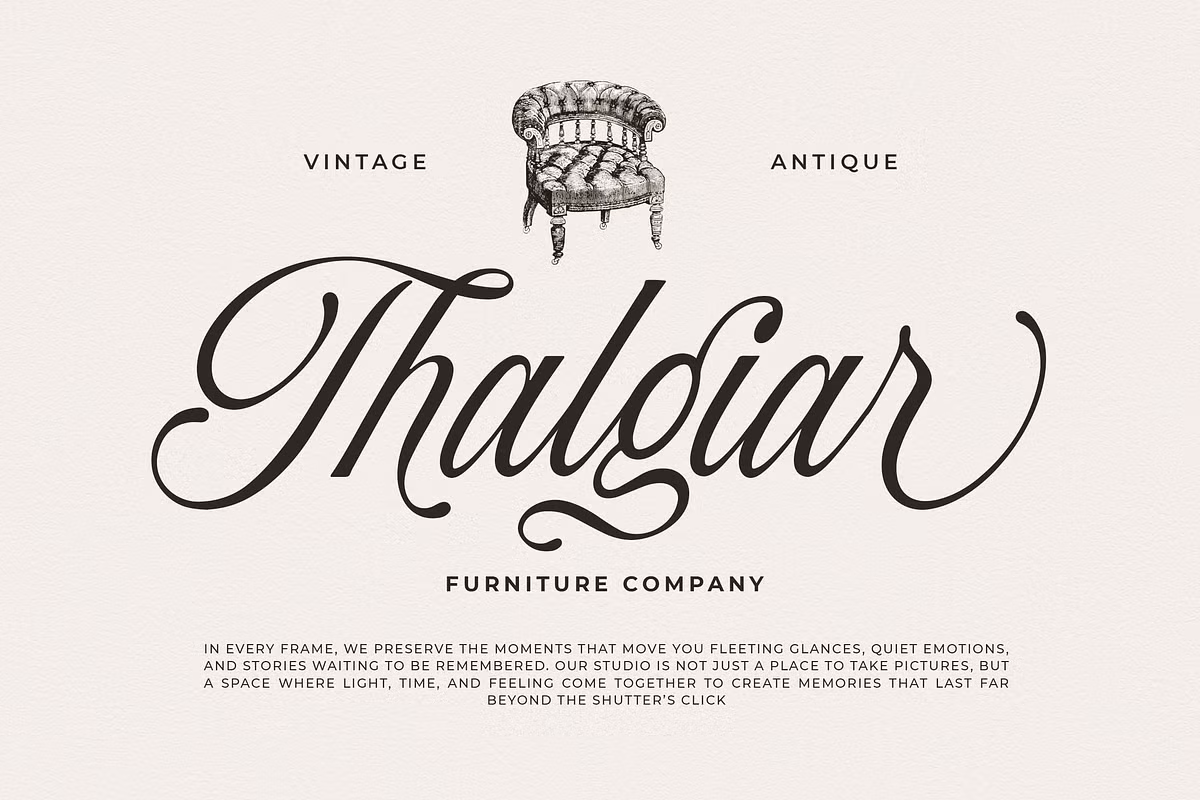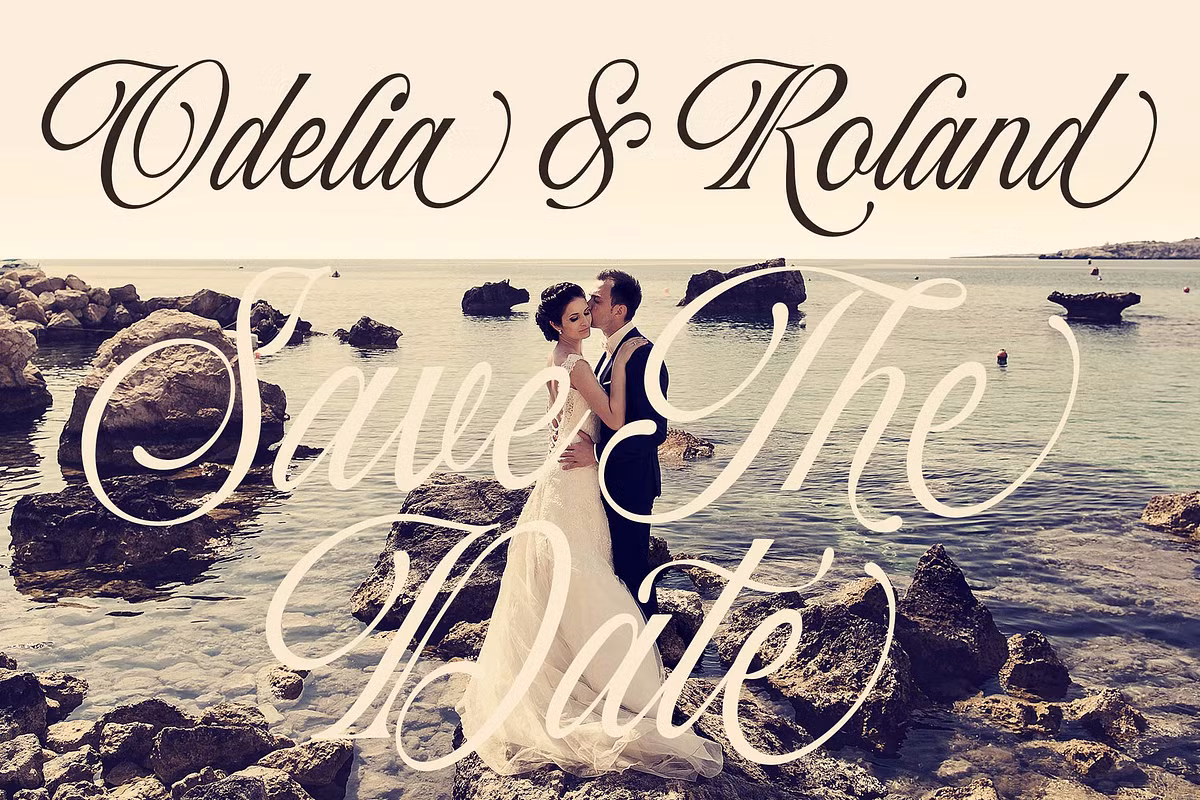
Baliglad: Elegant Calligraphy Script Font for Stylish Designs
Baliglad – Stylish Calligraphy Font
Baliglad: Elegant Calligraphy Script Font for Stylish Designs
Baliglad is a really beautiful calligraphy script font that combines old-school style with a modern twist. It’s got smooth, flowing curves and elegant strokes that give it a luxurious, handwritten feel. This makes it perfect for adding a touch of class and personality to your design projects. So, whether you’re creating a fancy logo or a romantic wedding invitation, Baliglad is a great choice. It can help you create something that’s both sophisticated and heartfelt. With its unique blend of classic and modern elements, Baliglad is sure to make your designs stand out. It’s a great way to add some extra elegance and charm to your work, and make it truly special.
Sample of Baliglad calligraphy script font
A sample showcasing the Baliglad font style.
Design Style of Baliglad
Baliglad is a really beautiful font with a handwritten style that’s both elegant and smooth. It’s like traditional calligraphy, but with a modern twist. The lines flow nicely and the letters are carefully designed to look luxurious. What’s great about Baliglad is that each character is balanced and harmonious, so it works well for big, bold headlines or more subtle compositions. This makes it a versatile font that can be used in many different ways. The overall effect is one of sophistication and refinement, which is perfect for designs where you want to make a good impression. Whether you’re creating a fancy invitation or a high-end advertisement, Baliglad is a great choice because it’s both stylish and easy to read.
The Baliglad font style is really flexible, so it can fit in with lots of different design looks. If you’re creating a modern brand or some traditional stationery, this font can easily match your design idea. It has lots of fancy connections between letters and extra characters that make it look even more elegant, giving you the tools to make typography that’s one-of-a-kind and really expressive. This means you can use it to add a personal touch to your designs, whether you’re going for a classic feel or something more contemporary. With Baliglad, you can create beautiful text that enhances your overall design and helps you stand out.
Visual Characteristics
• Smooth Curves: The gentle curves of Baliglad contribute to its handcrafted appearance, making it ideal for designs that aim to evoke warmth and intimacy.
• Graceful Strokes: The fluidity of each stroke is designed to mimic the natural flow of hand lettering, offering a dynamic visual experience.
• Stylish Ligatures: Baliglad includes a variety of ligatures that allow for seamless connections between letters, enhancing the overall elegance of the typography.
Visual characteristics of Baliglad font
Baliglad’s elegant visual characteristics.
Character Sets and Typography Features
Baliglad has a wide range of characters, which makes it really useful for many different design projects. It includes uppercase and lowercase letters, numbers, punctuation marks, and support for multiple languages, so it can be used by people who speak different languages. This means you can express yourself clearly and creatively, no matter what language you’re using or what you’re trying to say. With all these characters, you have a lot of options to communicate effectively.
What makes Baliglad really special is the wide range of ligatures and alternative characters it offers. These features give designers the freedom to move away from traditional typography and create text that’s truly one-of-a-kind and grabs your attention. Using Baliglad, designers can easily create custom logos, titles, and headings that perfectly capture the unique spirit of their brand. This means they can add a personal touch to their designs and make them stand out from the crowd. By providing such a rich array of creative options, Baliglad empowers designers to push the boundaries of traditional typography and bring their vision to life in a way that’s both authentic and visually stunning.
Styling Options
• Uppercase & Lowercase Letters: Use Baliglad’s uppercase letters for impactful headlines and lowercase for a more casual look.
• Numerals & Punctuation: The font includes a complete set of numerals and punctuation marks, making it functional for all types of design work.
• Multilingual Support: Baliglad’s multilingual options make it suitable for international projects, allowing you to reach a broader audience.
Different styling options of Baliglad font
Styling options available with Baliglad font.
Use Cases for Baliglad
Baliglad is an exceptionally versatile font that shines in a variety of design contexts. Here are some of the most popular use cases for this elegant calligraphy script font:
• Logo and Branding: Baliglad’s sophisticated style is perfect for creating memorable logos that convey elegance and professionalism.
• Wedding Invitations: The font’s romantic and graceful aesthetic makes it an ideal choice for wedding stationery, from invitations to thank-you cards.
• Fashion & Beauty Designs: Use Baliglad in your fashion branding, labels, or social media graphics to attract attention and convey a luxurious image.
• Social Media Content: Enhance your online presence with Baliglad by using it in quotes, posts, and promotional materials that stand out in crowded feeds.
• Packaging & Labels: Elevate product packaging with Baliglad, giving your items a high-end feel that appeals to discerning customers.
• Quotes, Posters, and Editorial Design: The font’s elegant style is perfect for creating impactful quotes and visually appealing editorial layouts.
Baliglad is not just a fancy font, it’s a powerful tool that can take your designs to the next level. With its sleek and sophisticated style, wide range of characters, and ability to be used in many different ways, it’s a must-have for any designer. Whether you’re creating a brand for a new company, making beautiful invitations for a wedding, or designing eye-catching graphics for social media, Baliglad can help your work stand out and look amazing. It’s perfect for adding a touch of elegance and class to your projects, and its handwritten feel gives it a luxurious and high-end look. By using Baliglad, you can make your designs really shine and give them a unique and memorable style. So why not give it a try and see how it can transform your work? With Baliglad, you can create designs that are truly special and that will leave a lasting impression on your audience.